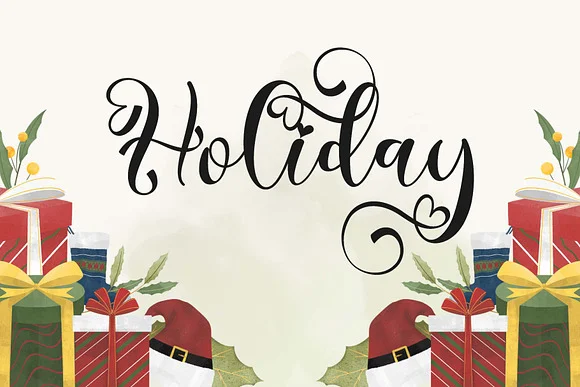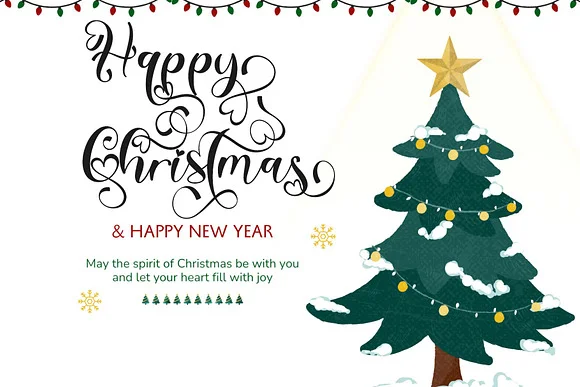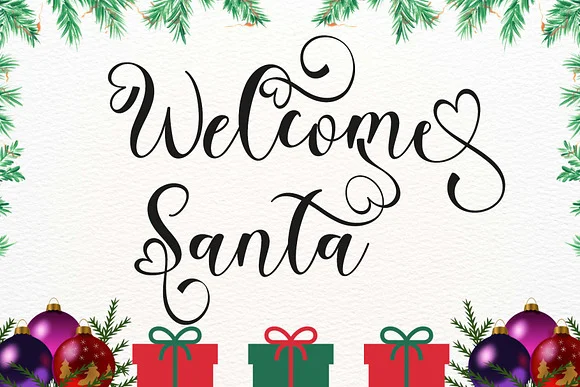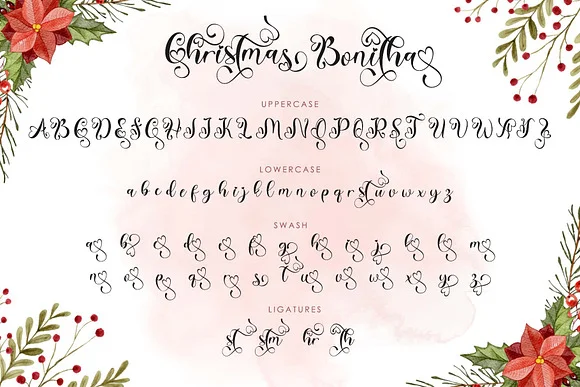
Christmas Bonitha Font
This graceful font is perfect for elegant Christmas invitations, sophisticated holiday cards, upscale Christmas weddings, luxury seasonal branding, refined Christmas packaging, premium holiday advertisements, distinguished Christmas events, exclusive seasonal celebrations, high-end holiday fashion, and elegant Christmas corporate communications.
Christmas Bonitha Font is exciting because it embodies refined sophistication and timeless elegance through its gracefully sculpted letterforms that bring an air of luxury and distinction to Christmas communications. The font features beautifully balanced characters with flowing curves and delicate details that reflect the essence of sophisticated holiday celebrations, incorporating subtle seasonal elements with aristocratic flair that creates typography worthy of the finest Christmas occasions. Each letter showcases meticulous craftsmanship with elegant proportions and refined flourishes that evoke the grace of a perfectly orchestrated Christmas gala or the intimate elegance of a family Christmas dinner served on the finest china. The design captures the aspirational beauty of Christmas celebrations at their most refined, creating typography that feels both exclusive and warmly inviting.
The Christmas Bonitha Font family includes sophisticated style variations: Regular, Bold, Light, Elegant, and Script versions. The collection features special refined elements including graceful swashes, sophisticated flourishes, elegant ligatures, and distinguished ornamental details. Additional components include luxury borders, refined frames, aristocratic decorations, and sophisticated ornamental designs that enhance the font's Christmas elegance appeal and create cohesive upscale holiday themes.
Luxury event planners and high-end brands will find Christmas Bonitha Font to be an invaluable tool for creating distinguished holiday communications that convey prestige, sophistication, and refined Christmas elegance. This exquisitely crafted font transforms ordinary Christmas messaging into extraordinary expressions of luxury that resonate with discerning audiences who appreciate the finer aspects of holiday celebration.
The typeface includes comprehensive character support with elegant styling that maintains excellent readability while conveying the sophisticated refinement and luxury appeal of upscale Christmas celebrations. The font's graceful design ensures stunning results across both intimate luxury applications and grand-scale elegant events.
Perfect for luxury hotels, high-end retailers, elegant Christmas events, and sophisticated seasonal brands, this font delivers distinguished visual impact that communicates refinement, exclusivity, and the sophisticated beauty of celebrating Christmas with grace, elegance, and the timeless appeal of truly distinguished holiday typography.